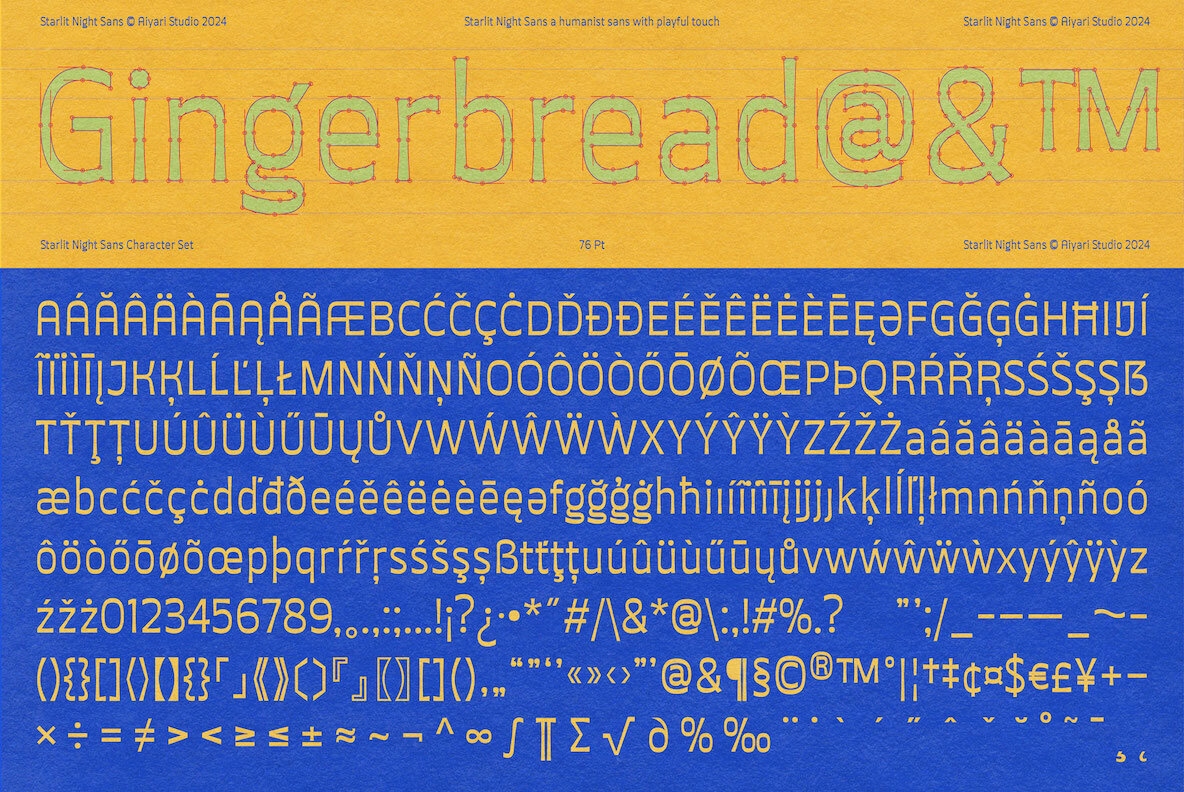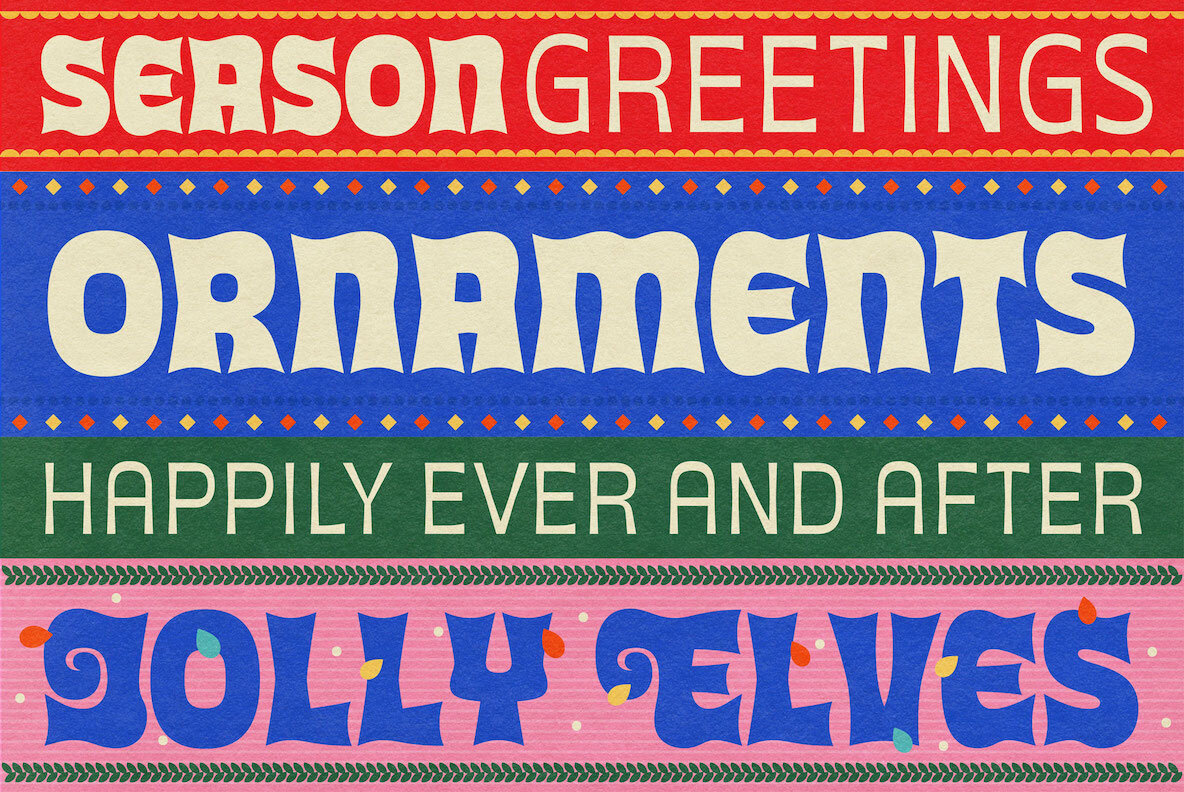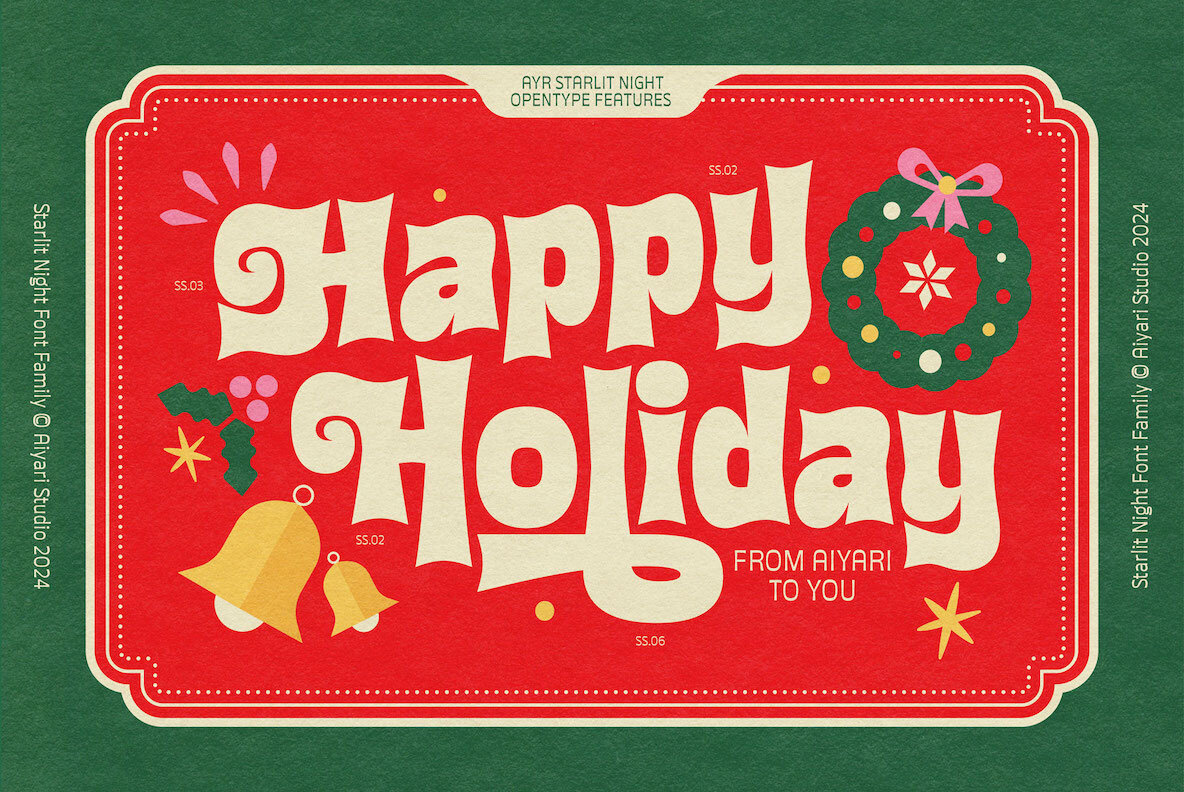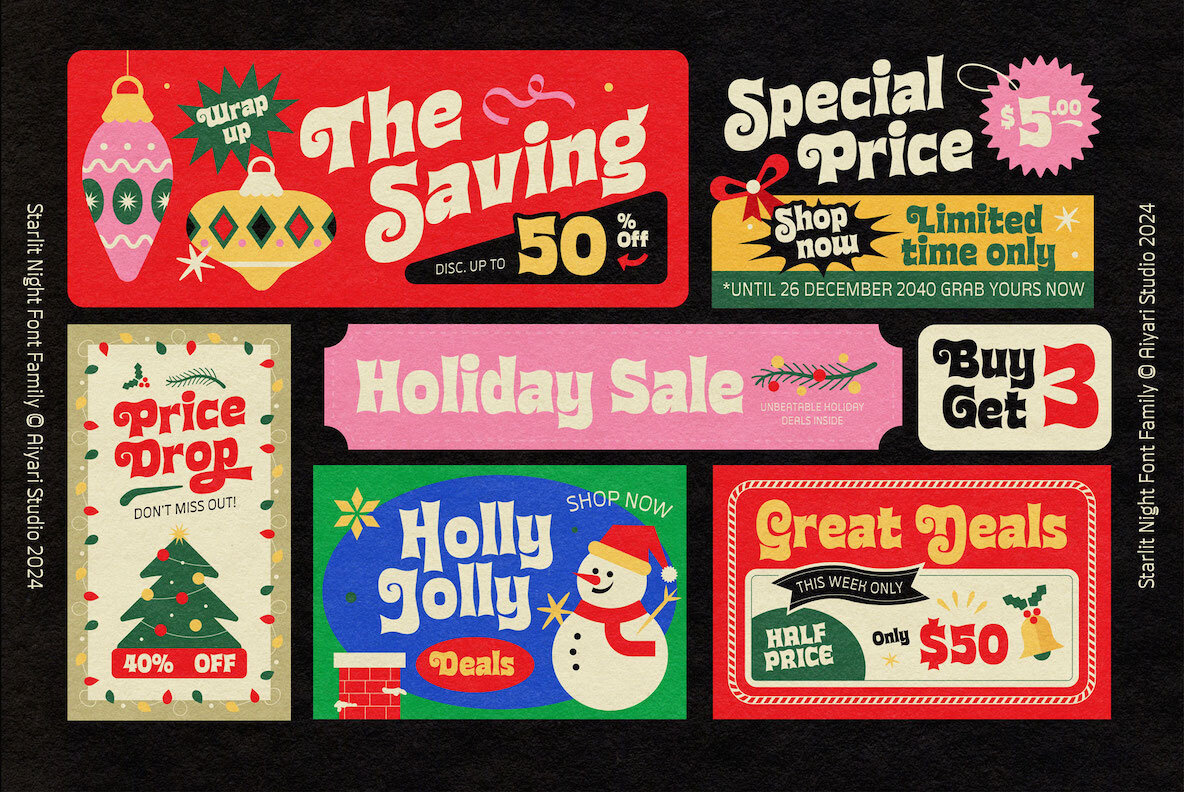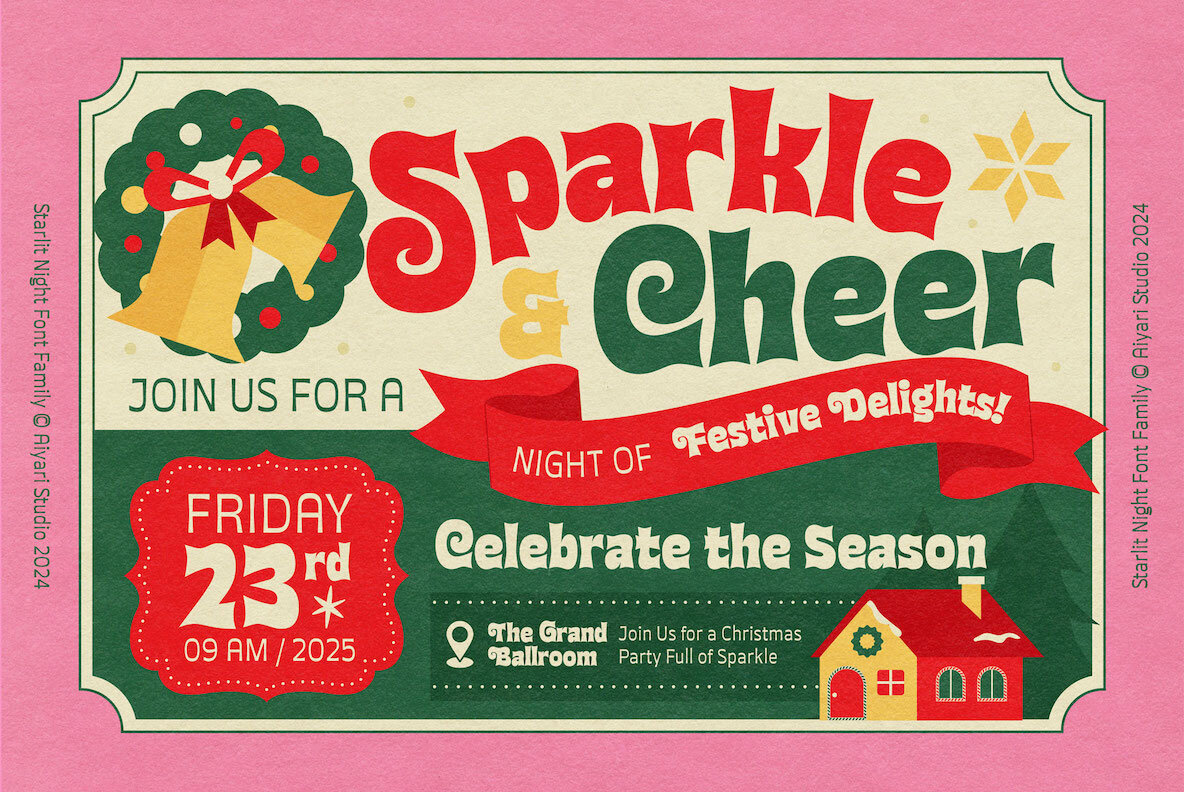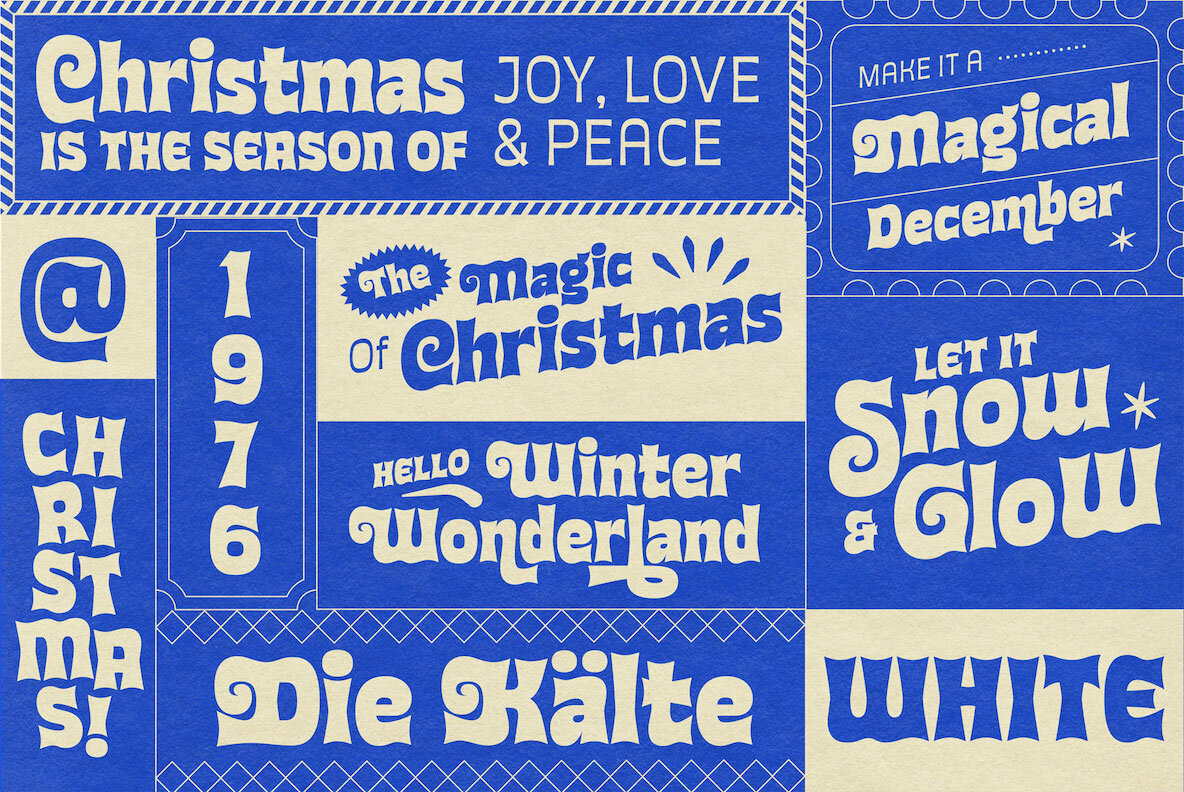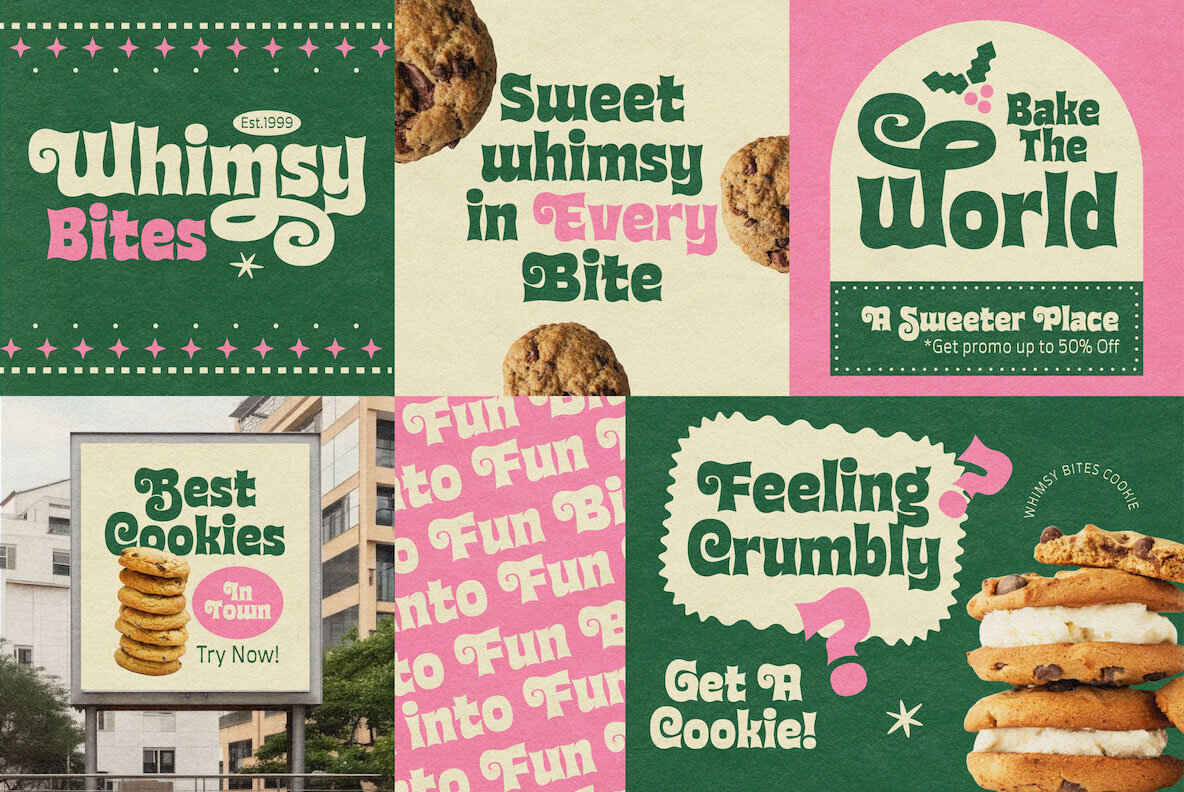
Starlit Night Font
Ayr Starlit Night Display
Ayr Starlit Night Sans
Starlit Night takes inspiration from 60s and 70s lettering, delivering a nostalgic yet modern aesthetic. This typeface is distinguished by its unique flare serifs and humanist letterforms, offering a warm and approachable vibe. Starlit Night bridges retro charm with contemporary versatility, making it suitable for a variety of design applications.
Ideal for headings, logos, invitations, and quotes, Starlit Night adds a classic touch to apparel designs, flyers, posters, greeting cards, and product packaging. It's also perfect for creating striking book covers, printed quotes, album covers, and movie graphics, promising both style and adaptability to modern design needs.